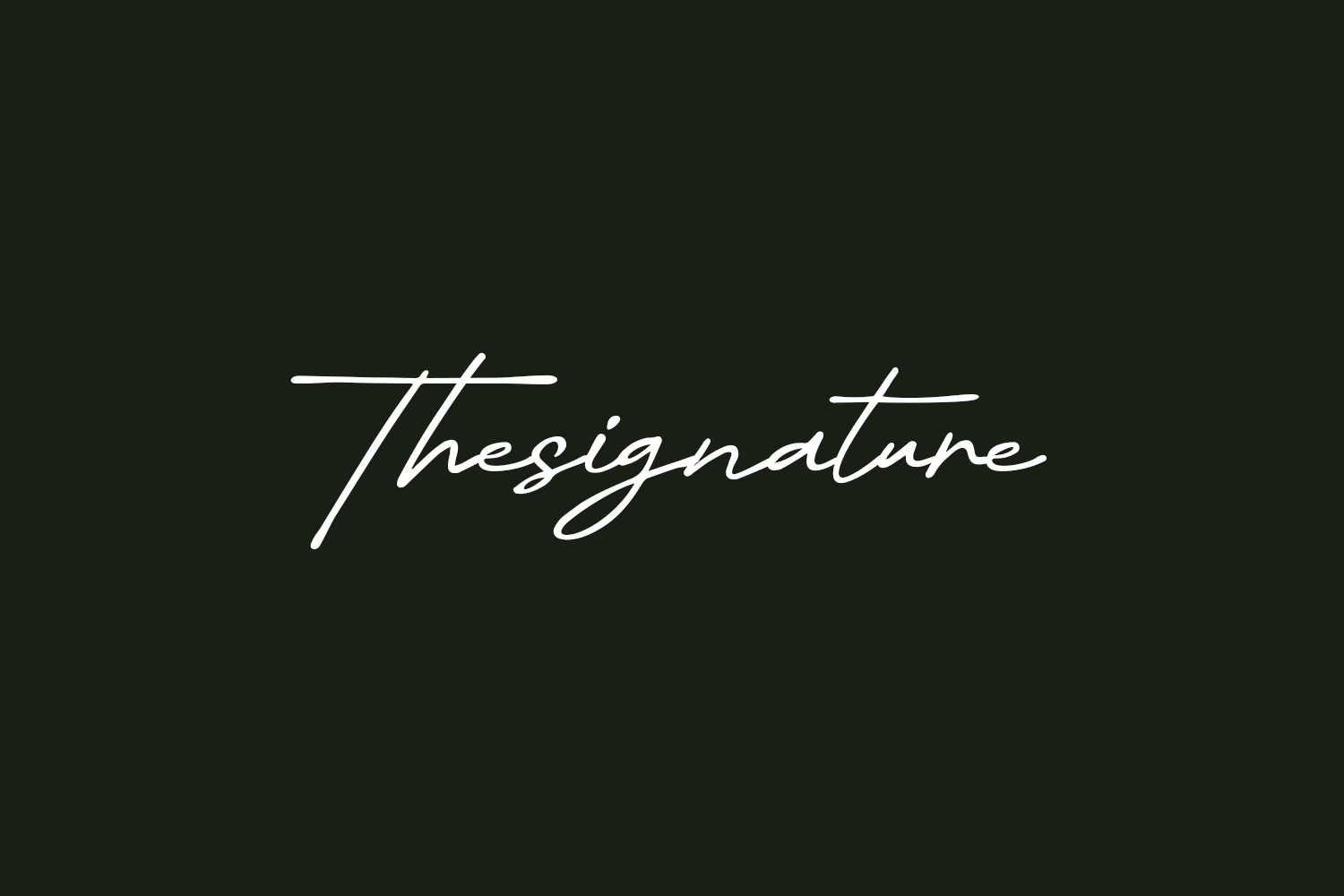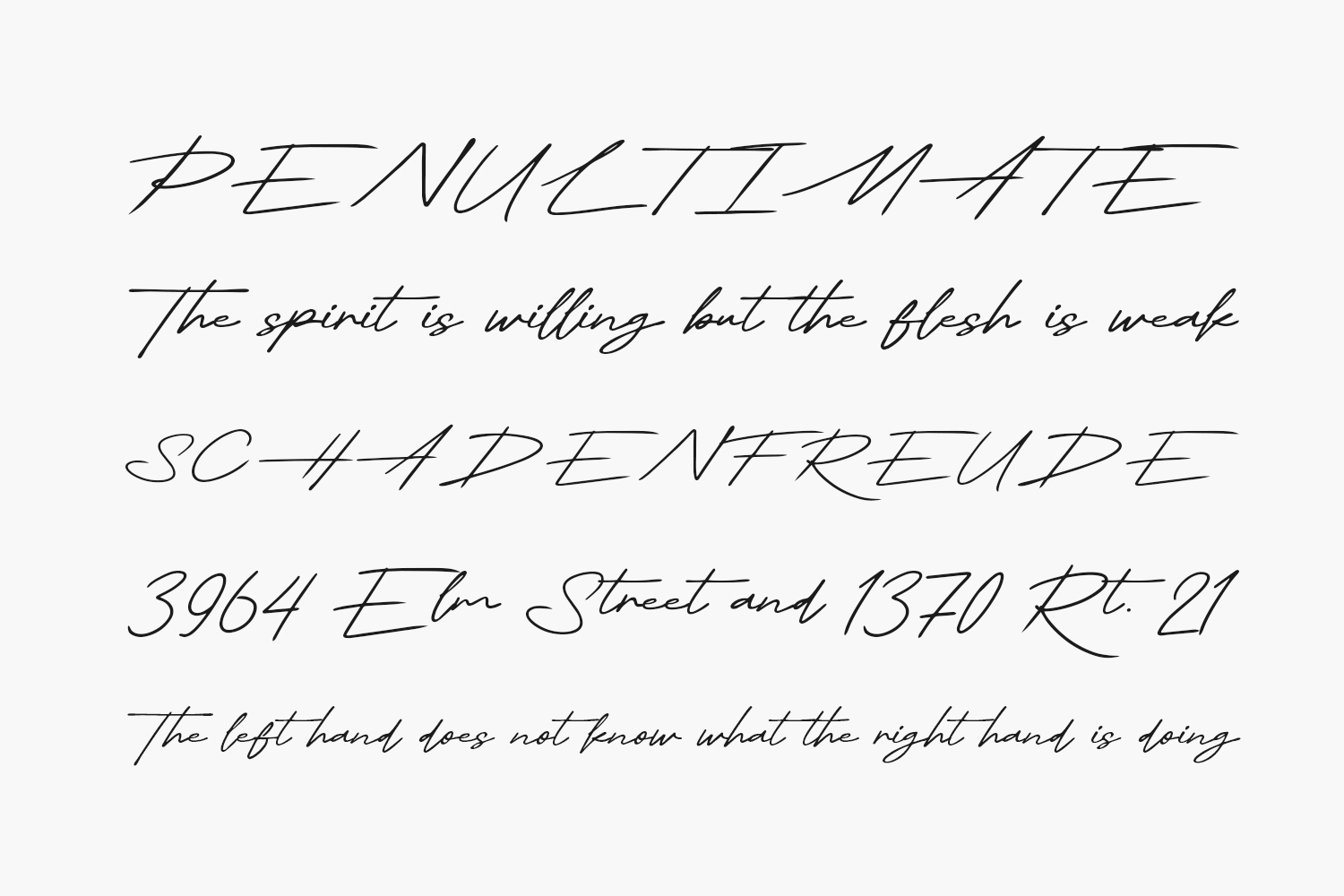
Thesignature Free Font is a modern signature font perfect for posters, logos, magazines, book covers, banners, and many more! Get this amazing freebie, and use it to create lovely designs. Thesignature Free Font was designed by Khurasan and is free for personal or commercial use.